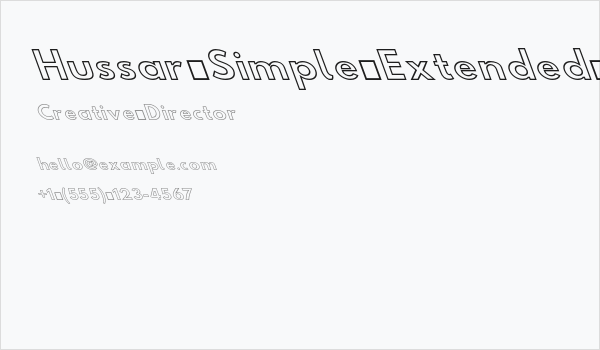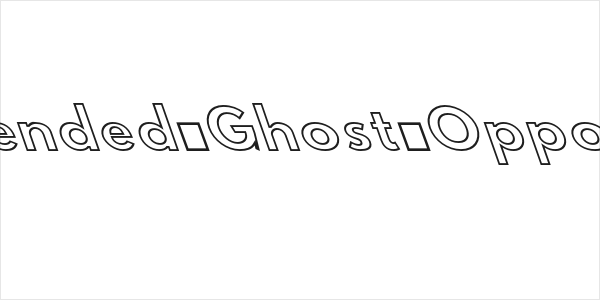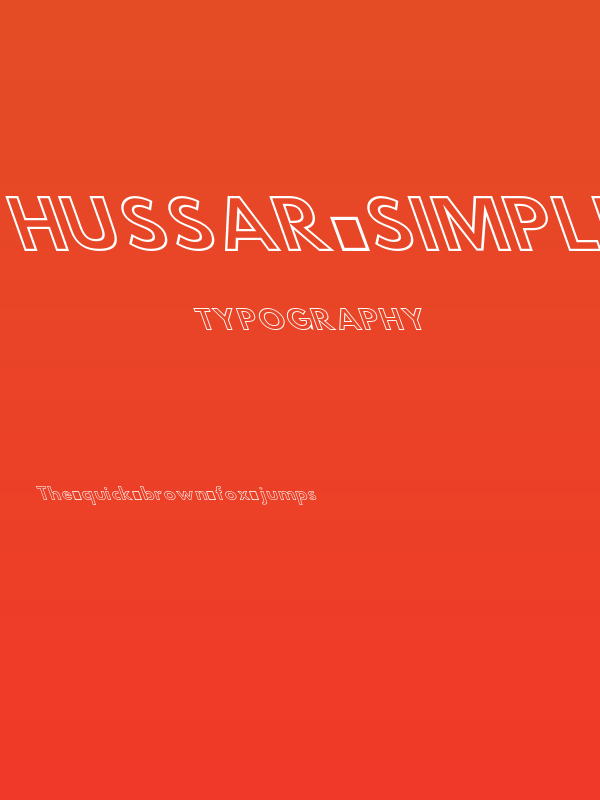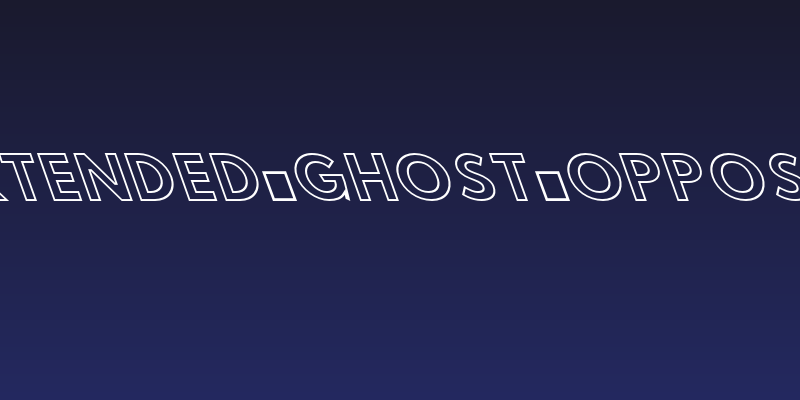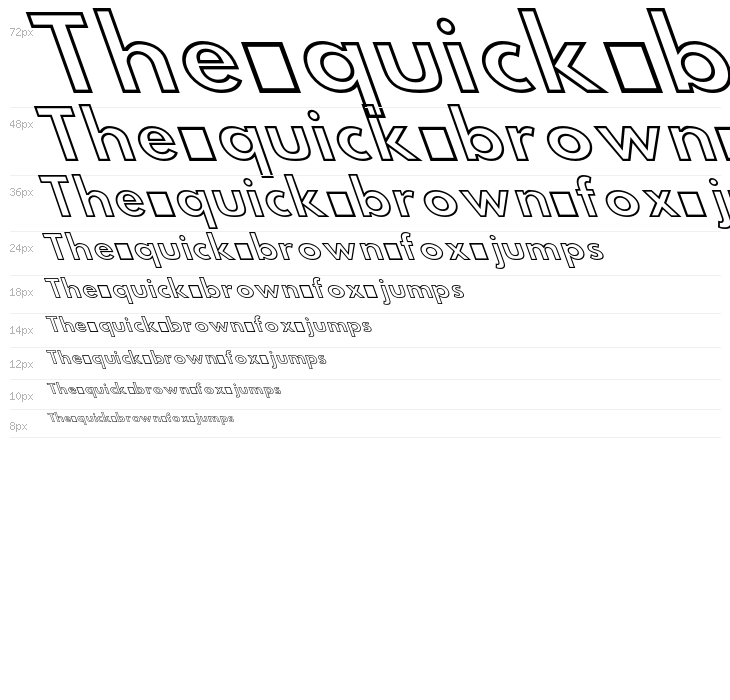
Hussar Simple Extended Ghost OppositeOblique Three Font
Hussar Simple Extended Ghost OppositeOblique Three Description
This font features a unique outline style with a modern and playful twist. The characters are bold and extended, giving them a strong presence on the page. The oblique angle adds a dynamic feel, while the ghostly outline effect creates a sense of depth and intrigue. The uppercase and lowercase letters maintain a consistent style, with rounded edges and a clean, geometric form. Numbers and special characters are designed to match the overall aesthetic, ensuring a cohesive look across all text elements. This font is ideal for projects that require a bold statement or a creative edge.
Proposed ProjectsIdeal for posters, headlines, branding, and creative design projects.